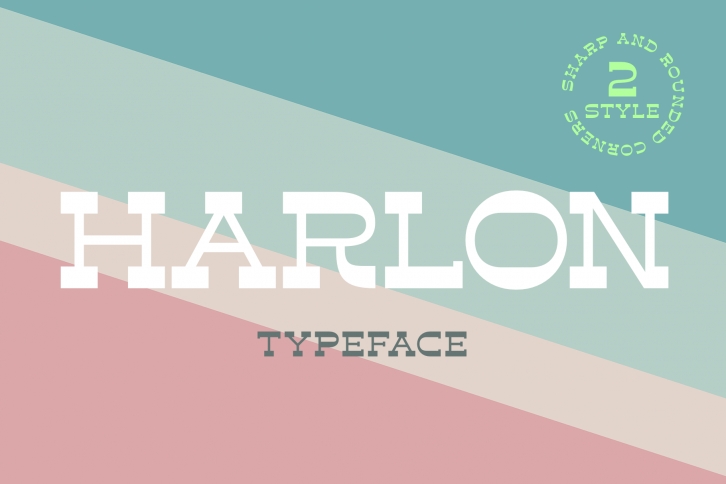
Harlon is a serif font with two headings, sharp corners, and rounded corners. This font is perfect for titles, book covers, logos, T-shirt printing, packaging, and much more. This font is PUA encoded, which means you can access all of the glyphs and swashes with ease!